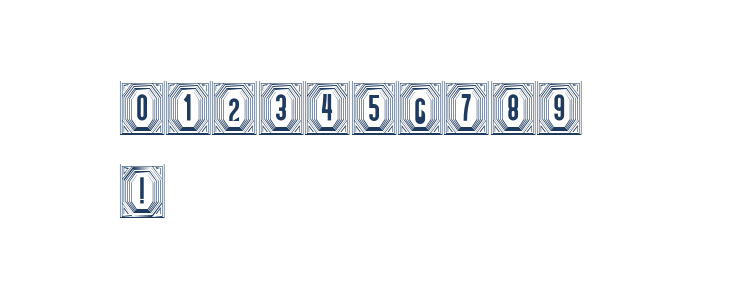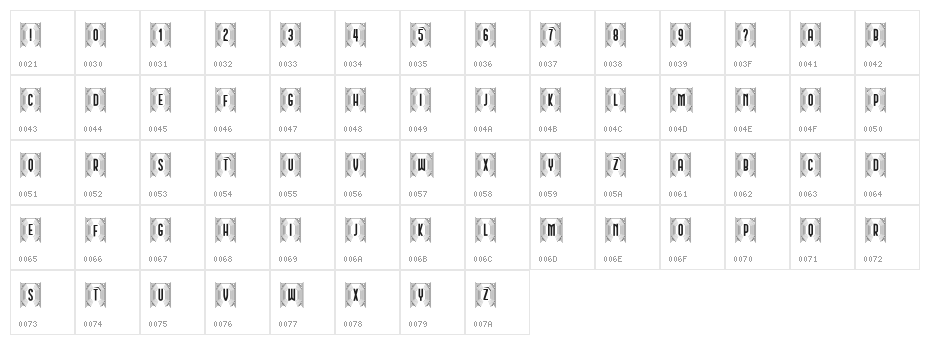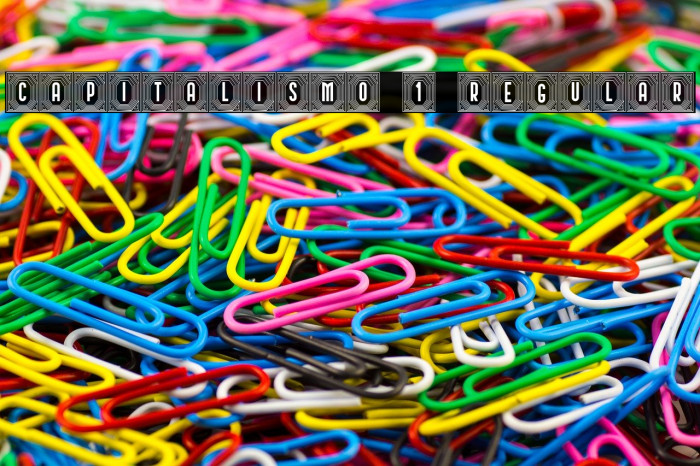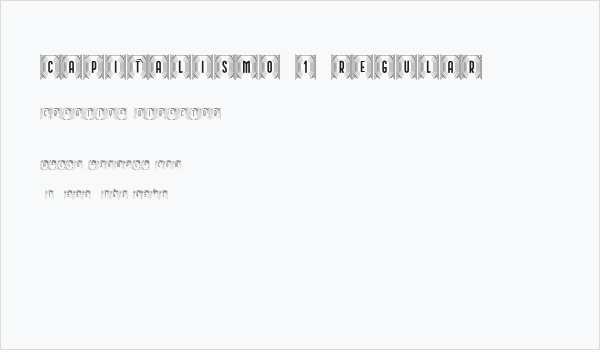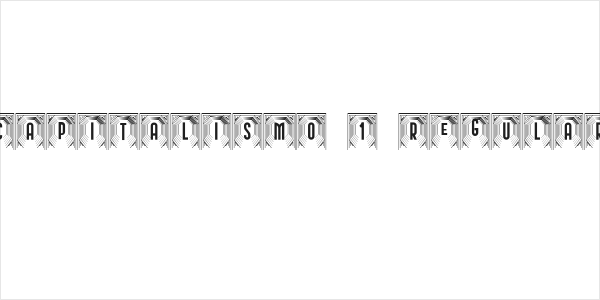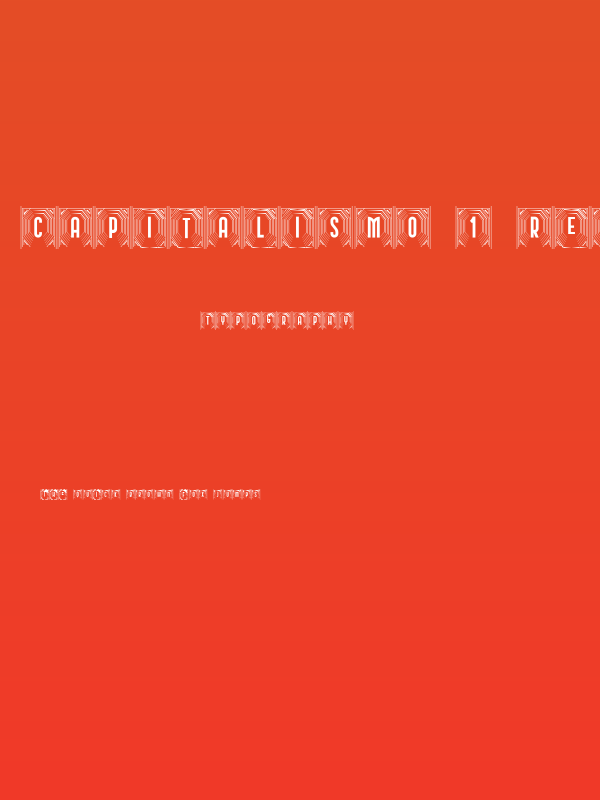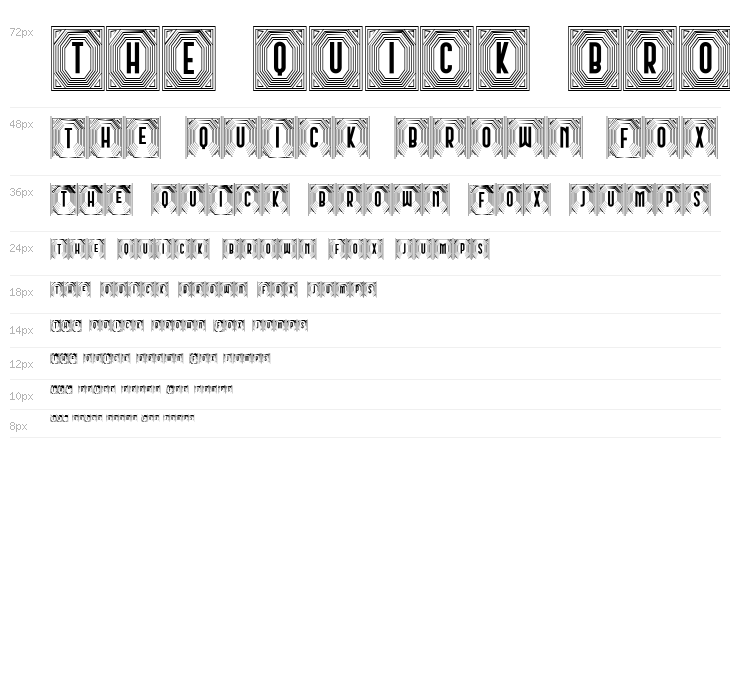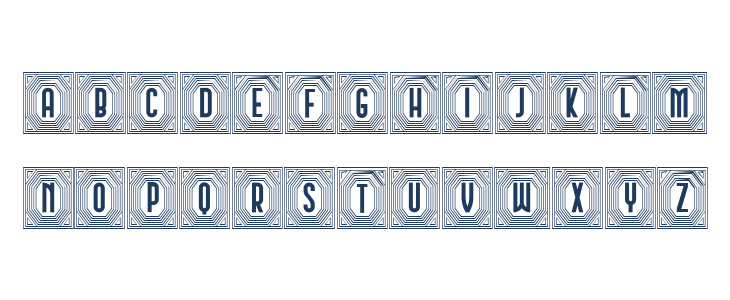
Capitalismo 1 Regular Font
Capitalismo 1 Regular Description
This font features a bold and striking design, characterized by its unique geometric pattern surrounding each character. The letters are enclosed within a series of concentric octagonal shapes, creating a visually captivating effect. The characters themselves are bold and sans-serif, with a modern and clean appearance. The overall style is decorative, making it ideal for projects that require a strong visual impact. The font's distinctive border adds an element of sophistication and complexity, making it suitable for artistic and creative applications.
| Proposed Projects | Ideal for posters, album covers, branding, and any design requiring a bold statement. |